Great graphic design is powered by great font selection. But picking great fonts is a challenge for most people. Luckily, Canva has made adding great fonts to your designs much easier. In this tutorial, our team of design experts will cover how to recreate the Friends font in Canva.
What is the Friends Font?
The “Friends” font is known as “Gabriola.” It is a distinctive and recognizable typeface that is used in the logo and branding of the popular television show “Friends.” The font is characterized by its playful and friendly appearance, with unique letterforms that make it instantly recognizable to fans of the show.
It has a casual and slightly handwritten quality, which complements the lighthearted and comedic nature of the series. The “Friends” logo, featuring this font, has become an iconic part of pop culture and is often associated with the show’s warm and familiar vibe.
What is the Closest Equivalent Font in Canva to The Friends Font?
The font in Canva closest to the original Friends font is Linotype Feltpen:
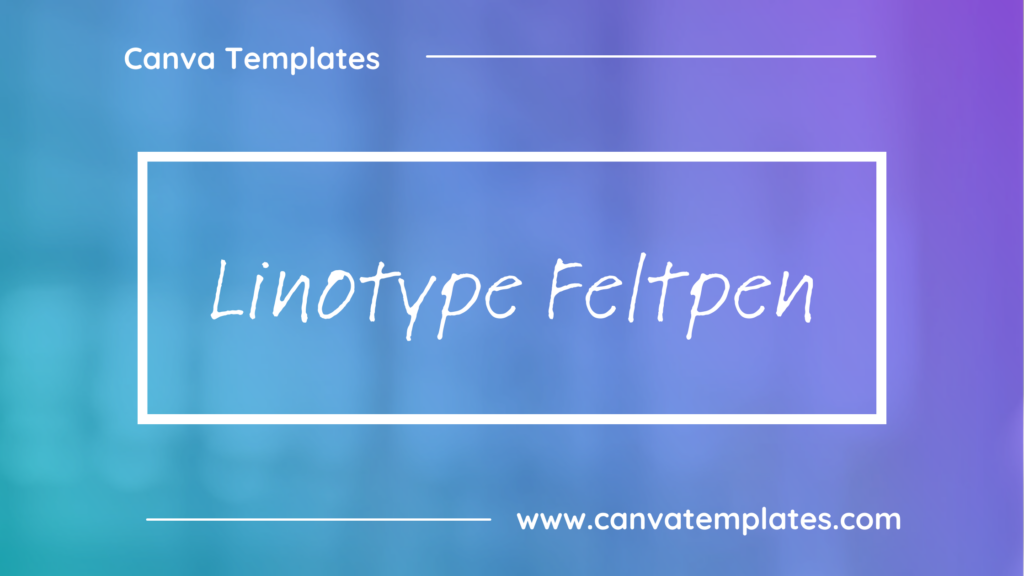
Friends Logo Font:
Friends Written in Linotype Feltpen:
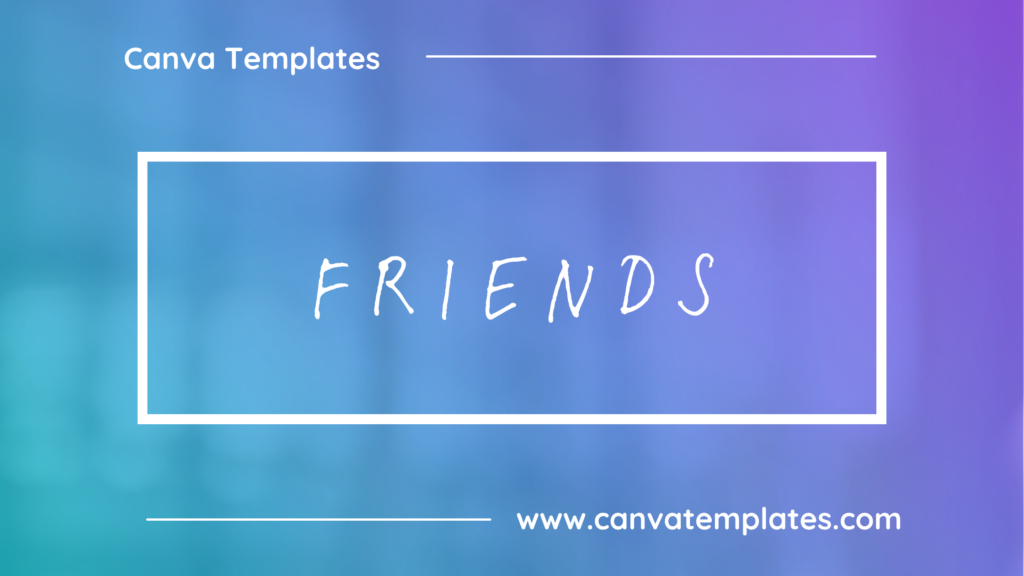
Alternative Friends Fonts for Canva